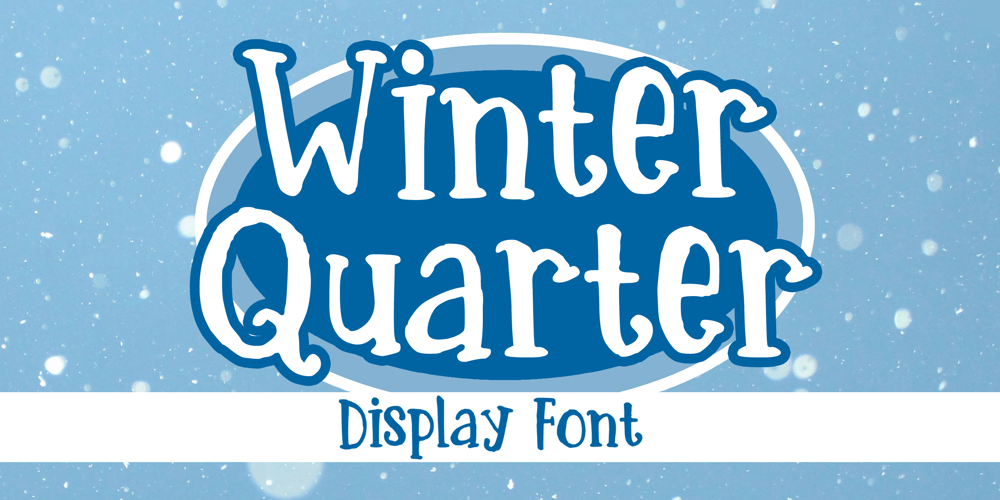
Winter Quarter
Winter Quarter font
Winter Quarter Font Family was designed by Gabriel Valentinus and published by Mvmet. Winter Quarter contains 1 styles and family package options. Winter Quarter is your perfect winter and season font. You can use it for anything ranging from t-shirts, kids’ book designs, and greeting cards to stickers and posters, or anything that needs a casual touch. Fall in love with its incredibly versatile style, and use it to create lovely designs!